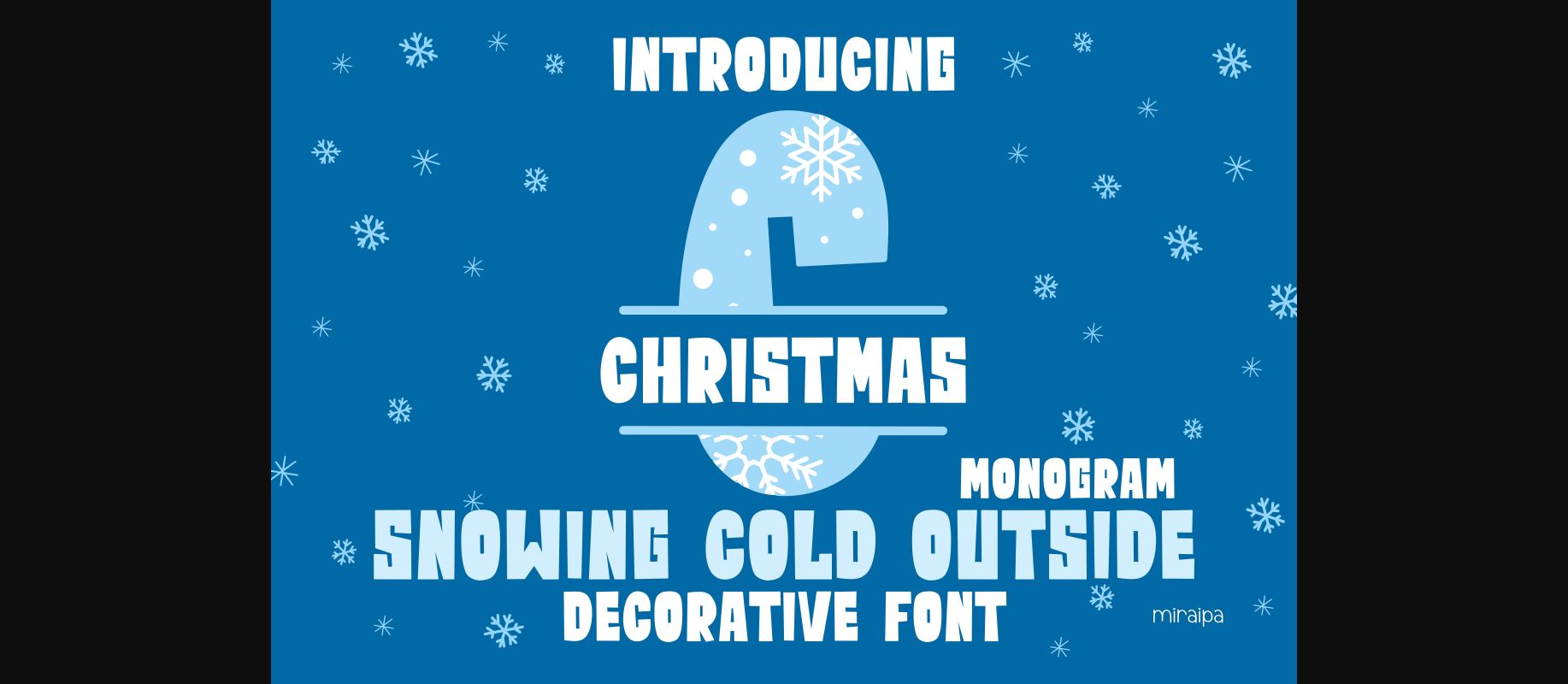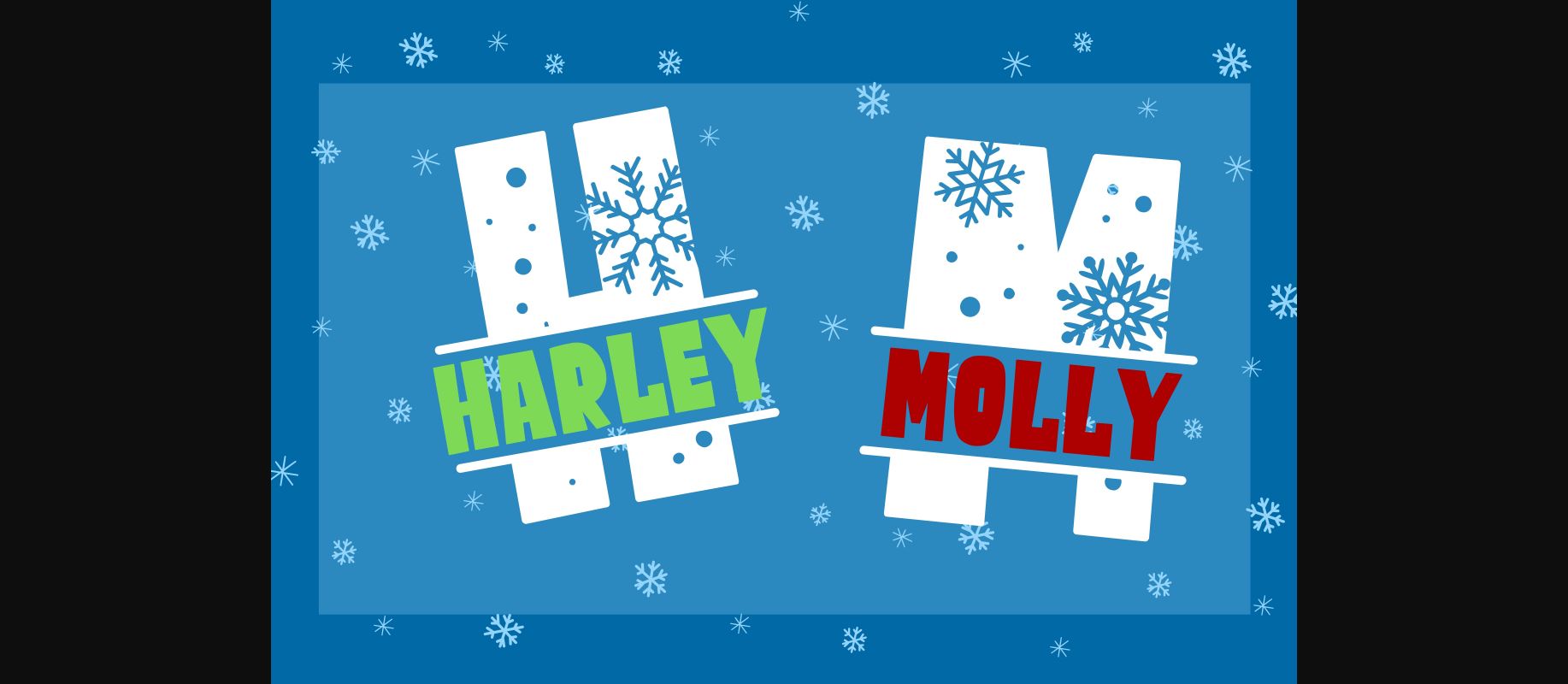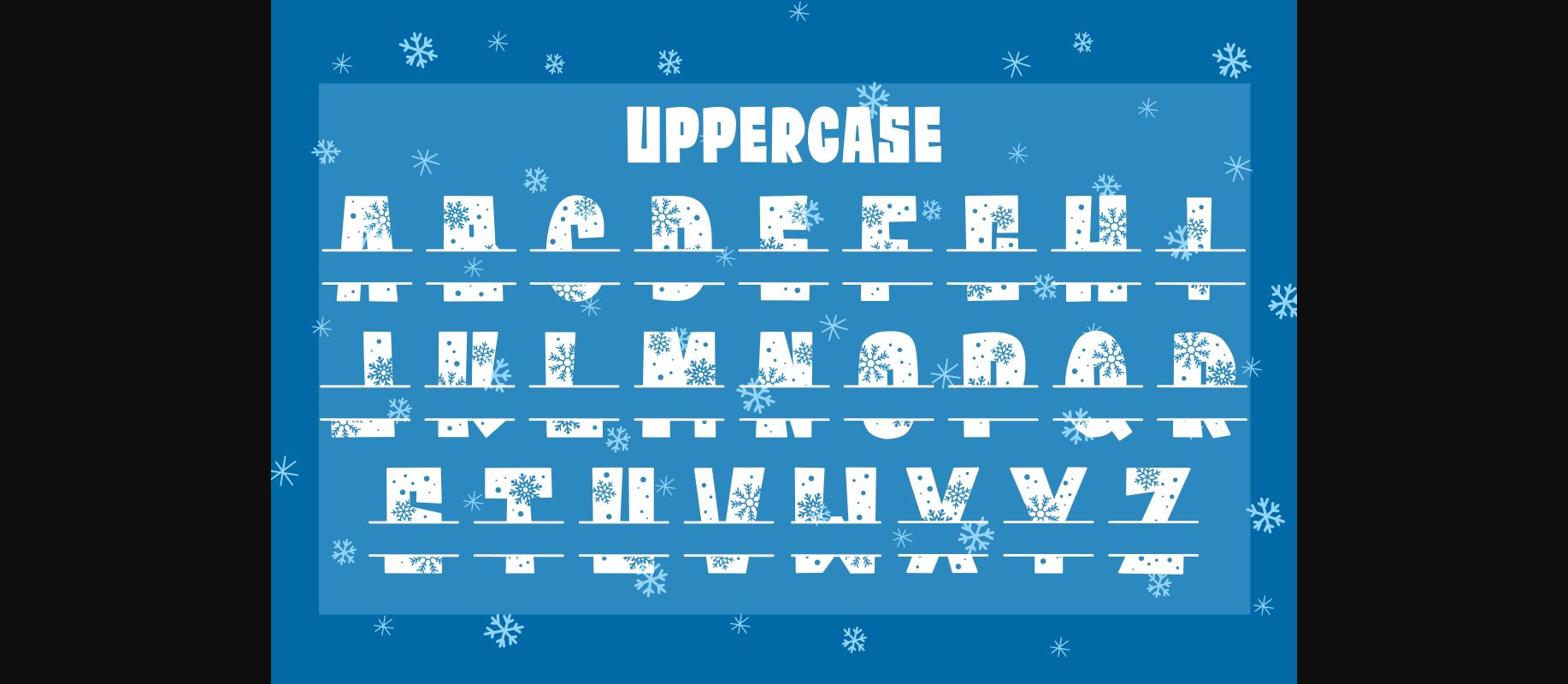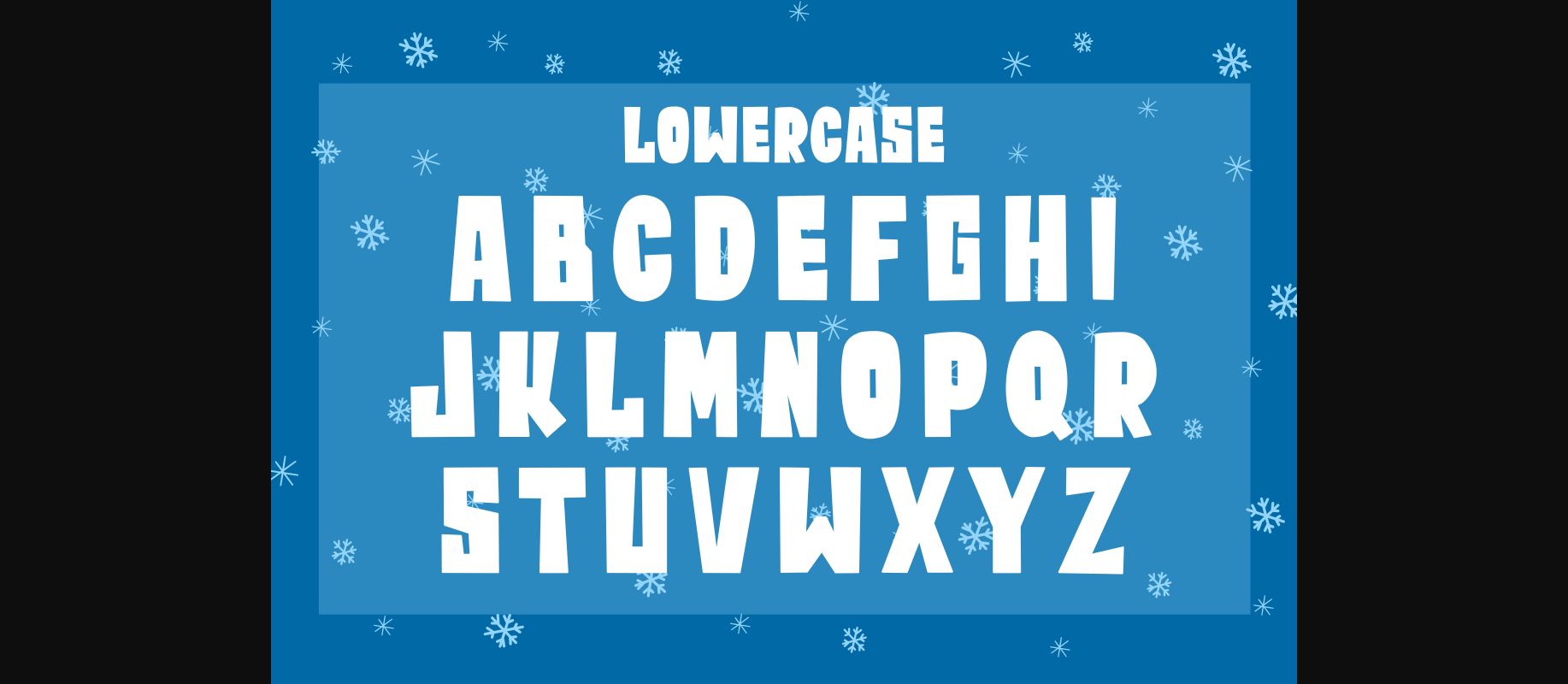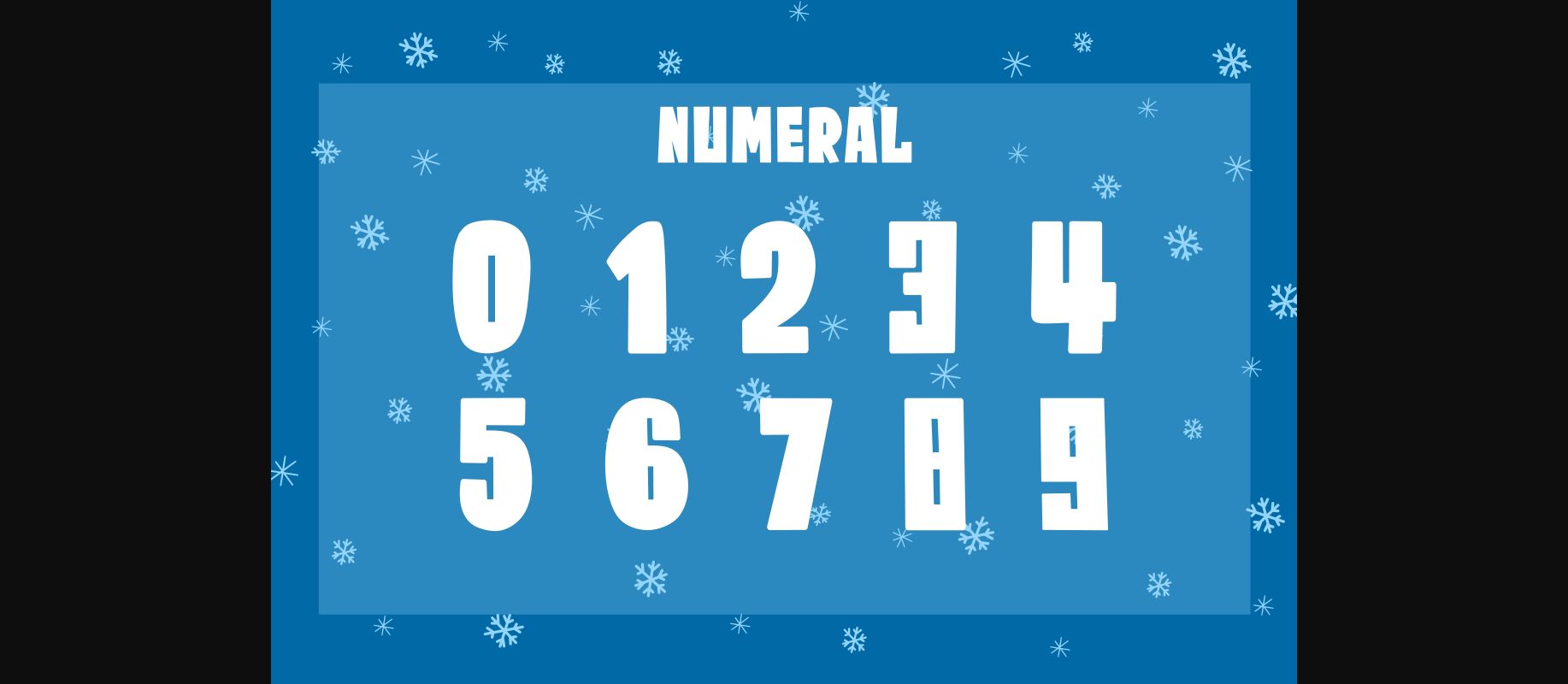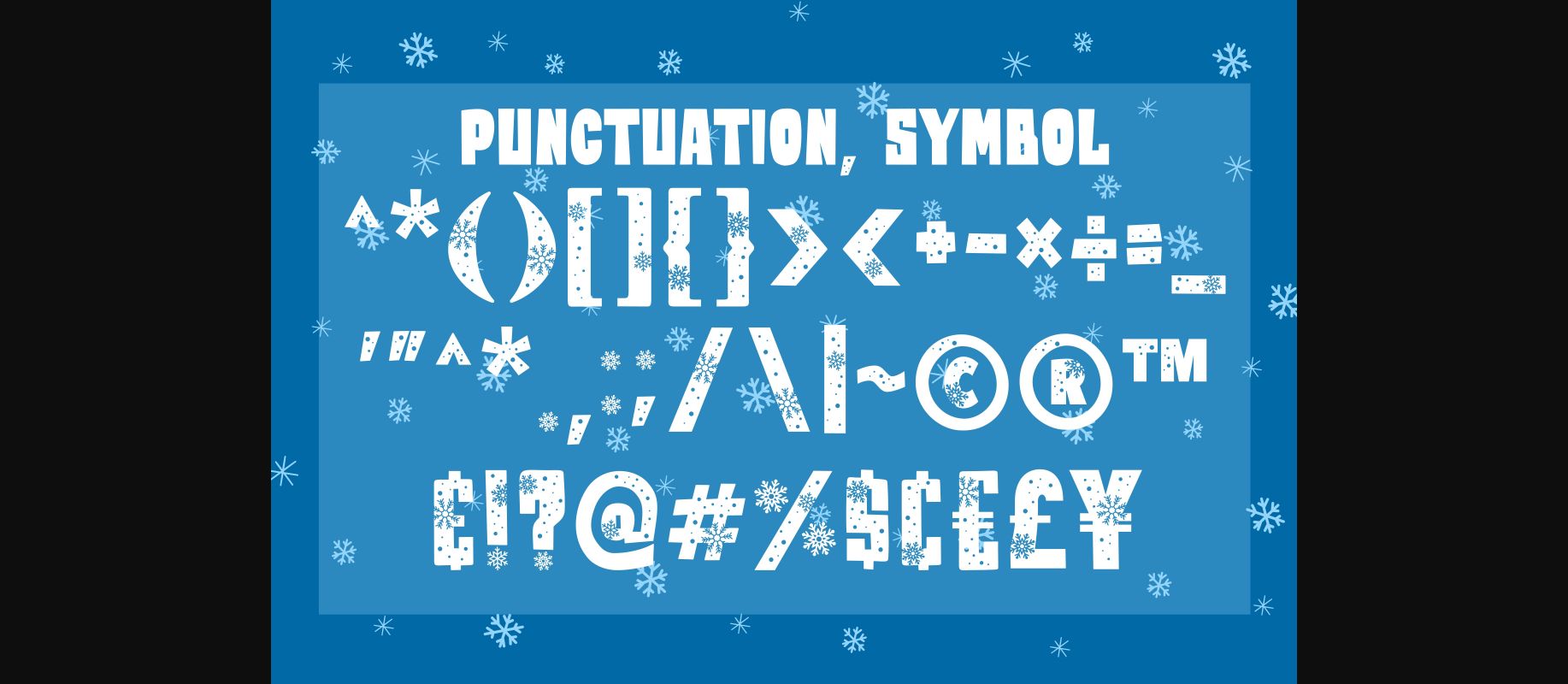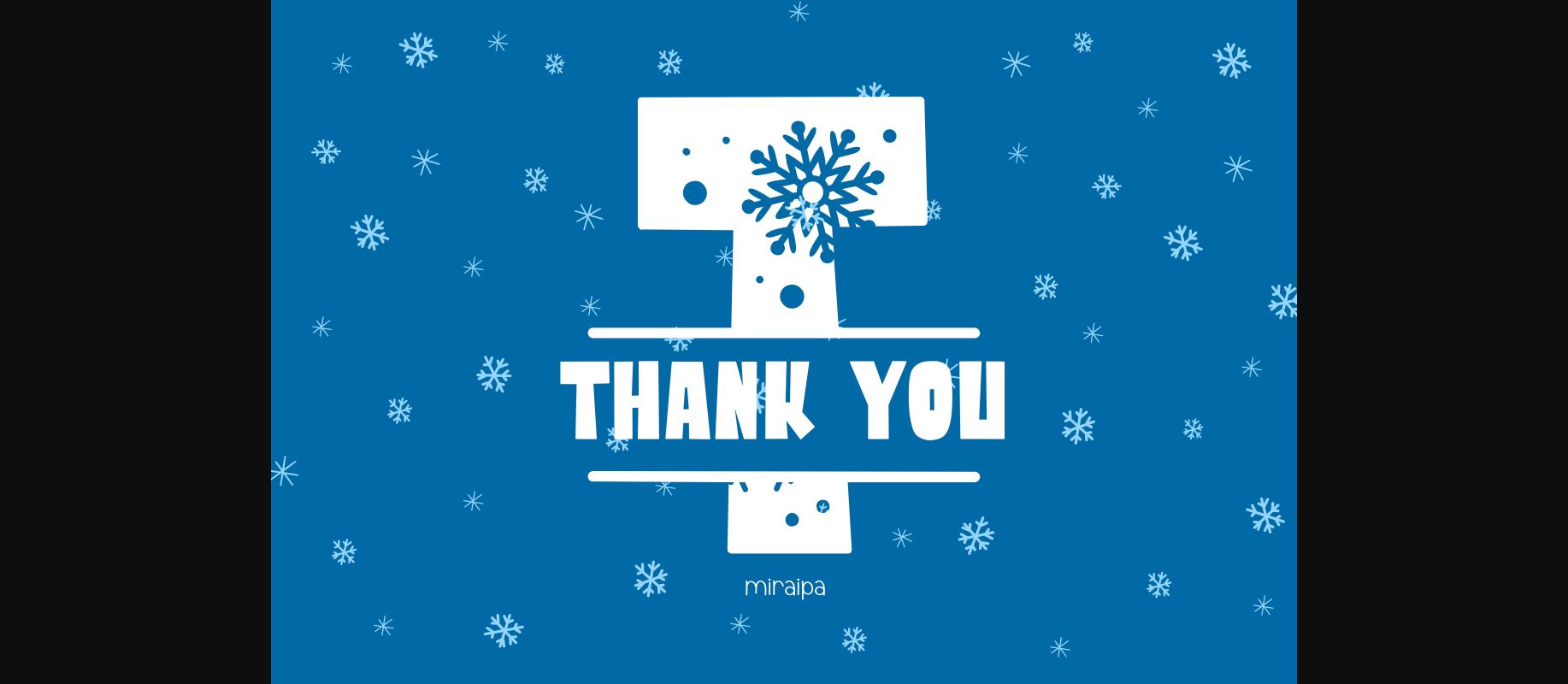
HomeDecorative FontsSnowing Cold Outside Font Decorative Fonts Snowing Cold Outside Font FacebookXPinterestWhatsApp 1 of 9 ... Snowing Cold Outside Font Poster 2... Snowing Cold Outside Font Poster 3... Snowing Cold Outside Font Poster 4... Snowing Cold Outside Font Poster 5... Snowing Cold Outside Font Poster 6... Snowing Cold Outside Font Poster 7... Snowing Cold Outside Font Poster 8... Snowing Cold Outside Font Poster 9... About Snowing Cold Outside Font Snowing Cold Outside is a lovely and festive decorative font. Add it to each of your winter designs and you will be amazed by the generated outcome! DOWNLOAD NOW People also explored Beone Extra Black Font Dahlia Font Almaira Font Unicorn Font Brusher Font Dear Eloise Font New Year Font Calysta Font Wayang Jawa Font 338 0 TagsSnowing Cold Outside Font Previous articleHappy Cat Mandala Monogram FontNext articleCrazy Ball Font LEAVE A REPLY Cancel reply Comment: Please enter your comment! Name:* Please enter your name here Email:* You have entered an incorrect email address! Please enter your email address here Website: Save my name, email, and website in this browser for the next time I comment. Personal Use Free Gagalin Personal Use Free Read more about this font Rionaldo Angelo Personal Use Free Read more about this font Jellia Personal Use Free Read more about this font The Winter Personal Use Free Read more about this font BLOG Free vs Paid Fonts: Why Investing in Premium Fonts Is Worth It Free vs Paid Fonts: Why Premium Fonts Are Worth It in 2025 The debate of free vs paid fonts continues in the design world. While... Elegant Wedding Invitation Fonts – Handwritten & Script Fonts Best Fonts for YouTube Videos: Make Your Thumbnails Stand Out How to Install and Use Fonts on Windows, macOS, and Web Projects